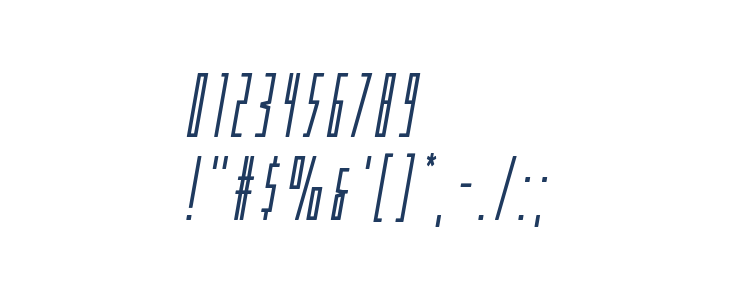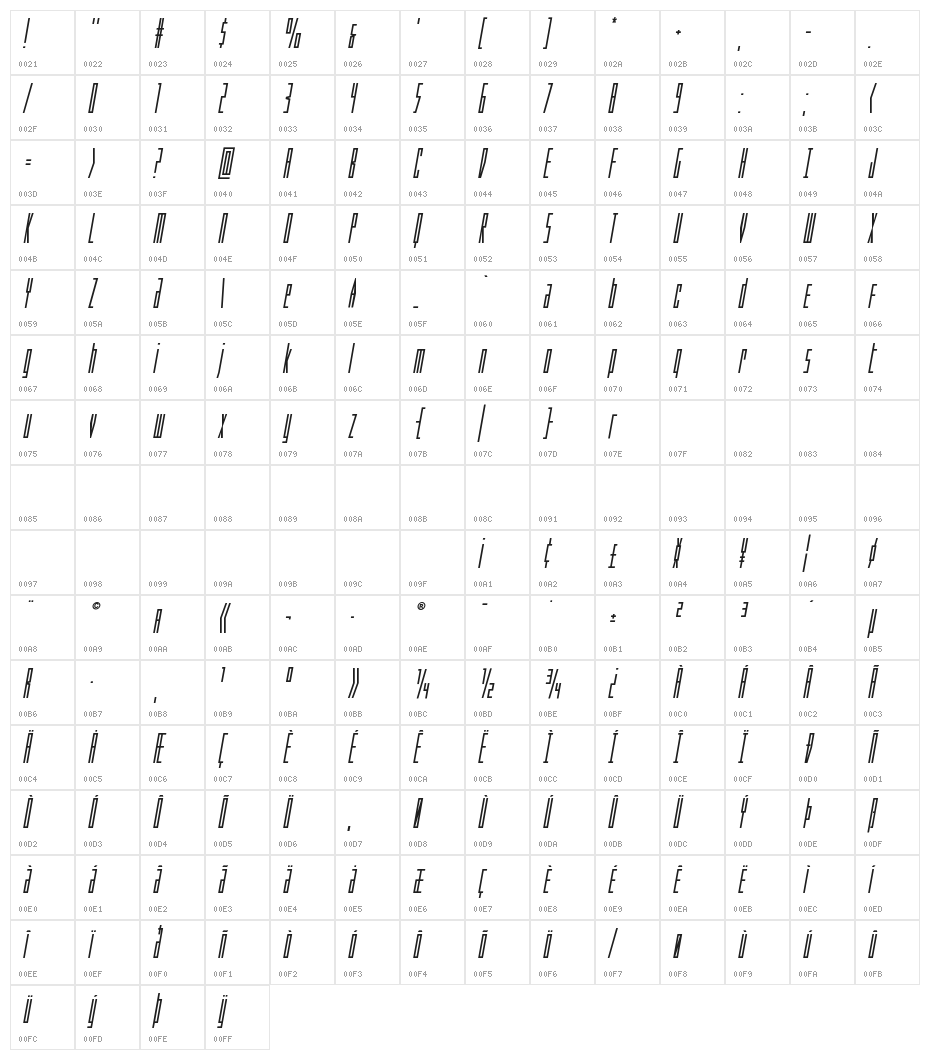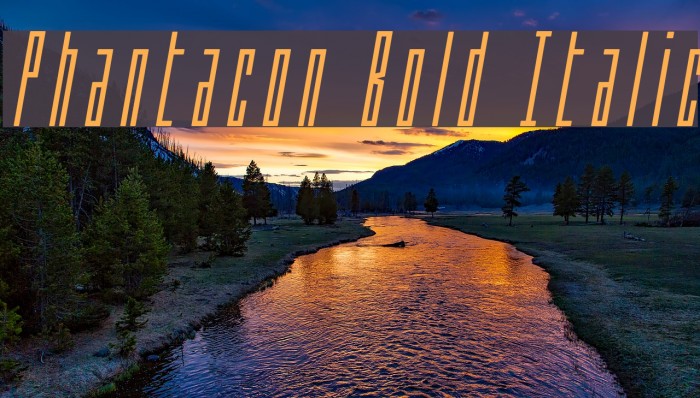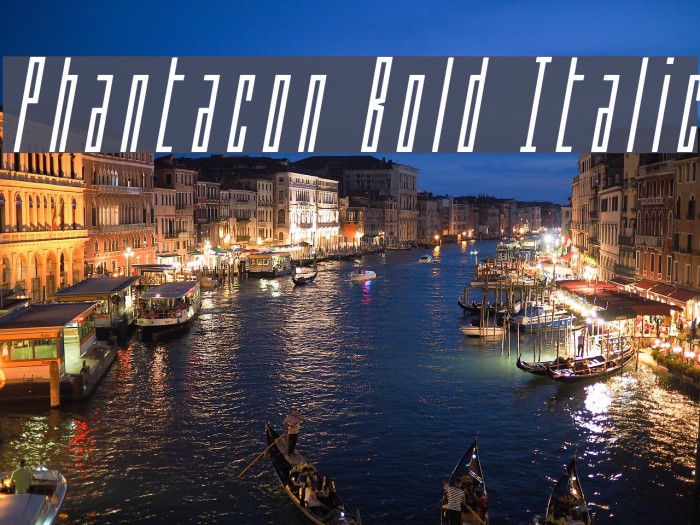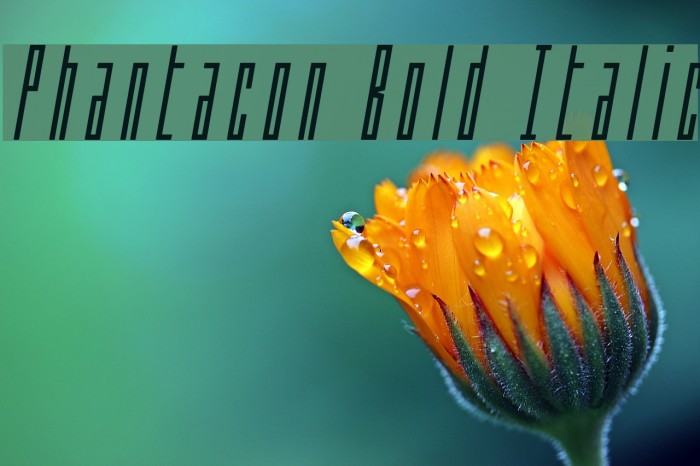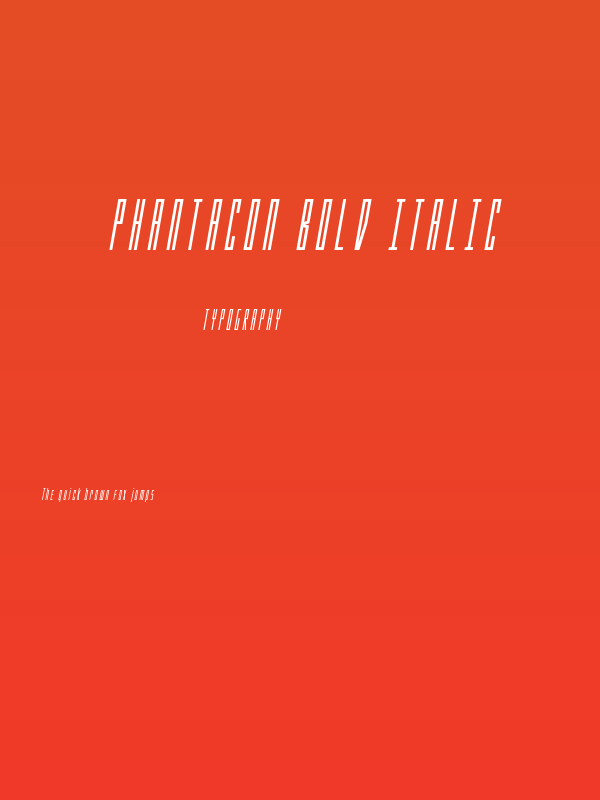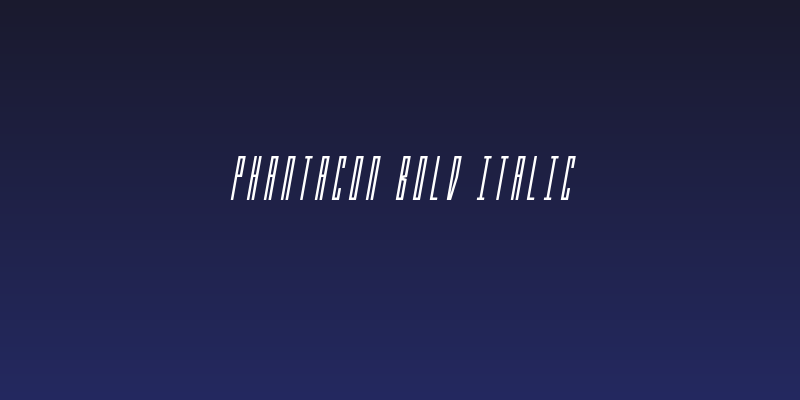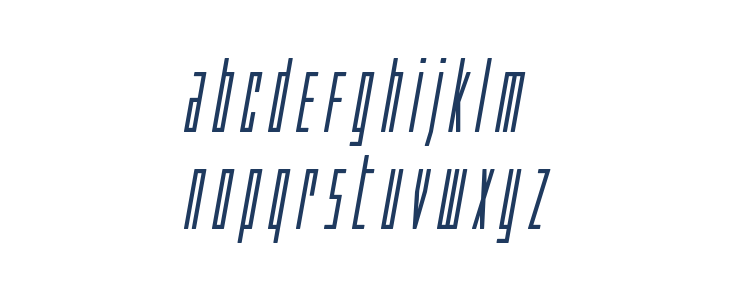
Phantacon Bold Italic Font
Phantacon Bold Italic Description
This font features a bold and italicized style with elongated, narrow characters that convey a sense of speed and modernity. The uppercase and lowercase letters maintain a consistent height, with sharp angles and clean lines that enhance its futuristic appearance. The numerals and special characters follow the same design principles, ensuring uniformity across all glyphs. The slanted orientation adds dynamism, making it suitable for projects that require a sense of motion or urgency.
| Proposed Projects | Ideal for branding, sports team logos, automotive designs, and futuristic-themed projects. |